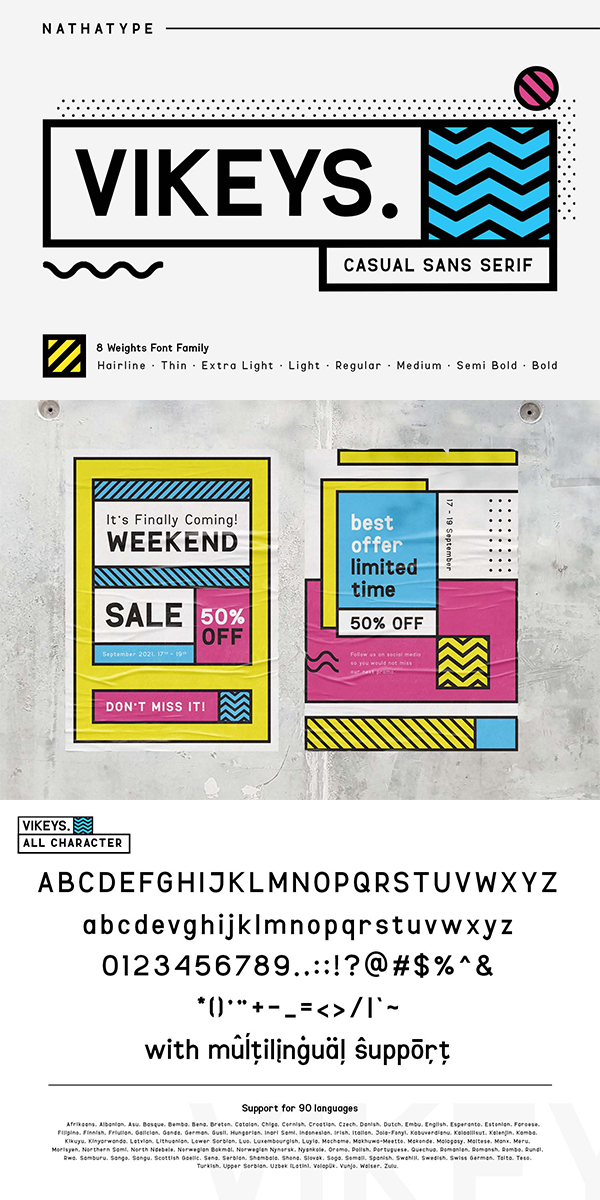
Vikeys Font
About Vikeys
If we can give you many options then why not? Vikeys is a package that will makes you very happy. With this family you will get many options to maximize your designs with stylish fonts. Vikeys is made in uppercase and lowercase that easy on the eyes and nice to look while it’s also easy to read.
• Numerals and Punctuation